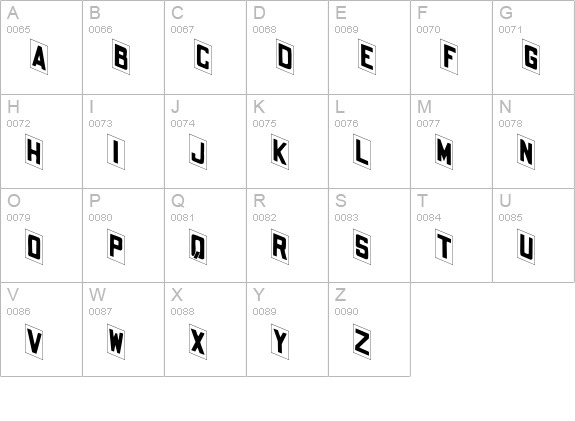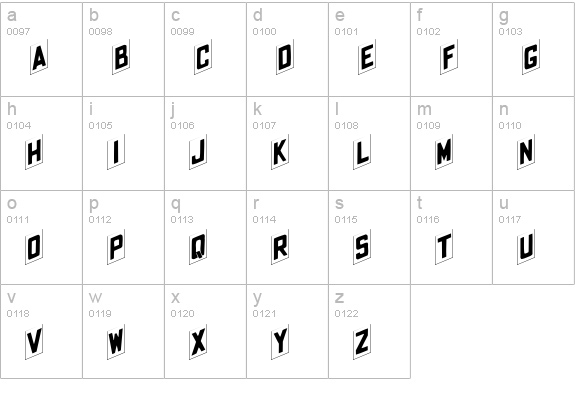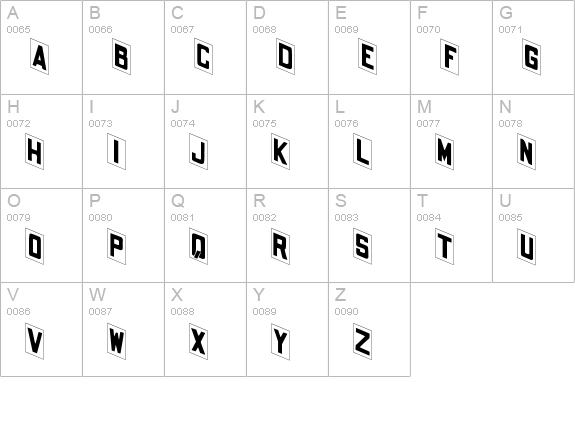
Shohl Fold Font Details
Introducing Shohl Fold font, a stunning display typeface that captivates with its unique and intricate design. This font effortlessly blends modern aesthetics with a touch of vintage charm, making it the perfect choice for a wide range of creative projects. Shohl Fold font features elegant letterforms that are carefully crafted with distinct folds and creases, adding a sense of depth and dimension to your typography. Its bold and strong presence on the page commands attention, while its intricate details invite closer exploration. With its versatile nature, Shohl Fold font is suitable for various design applications, including logos, headlines, posters, packaging, and more. Its eye-catching appeal ensures that your message will be conveyed with style and sophistication. The best part? Shohl Fold font is available for free download at FontsMarket.com. This means that you can effortlessly add this stunning typeface to your design arsenal without any financial burden. Whether you're a professional designer or an amateur enthusiast, this free font is accessible to all, allowing you to unleash your creativity without limitations. Don't miss out on this opportunity to elevate your designs with Shohl Fold font. Download it for free at FontsMarket.com and experience the power of this visually captivating typeface.